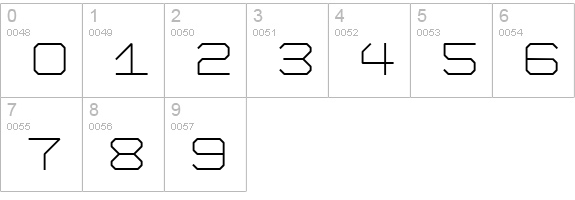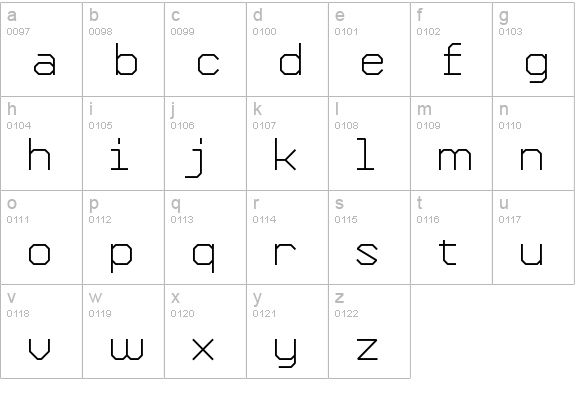
The Formation font is a modern and stylish typeface that is sure to make your designs stand out. With its sleek lines and contemporary feel, this font is perfect for a wide range of projects, from branding to web design. Its versatility makes it a must-have for any designer looking to add a touch of sophistication to their work. And the best part? The Formation font is completely free to download at FontsMarket.com! That's right, you can access this amazing font at no cost, making it a fantastic addition to your font collection without breaking the bank. So why wait? Download the Formation font today and elevate your designs to the next level with this stunning typeface.